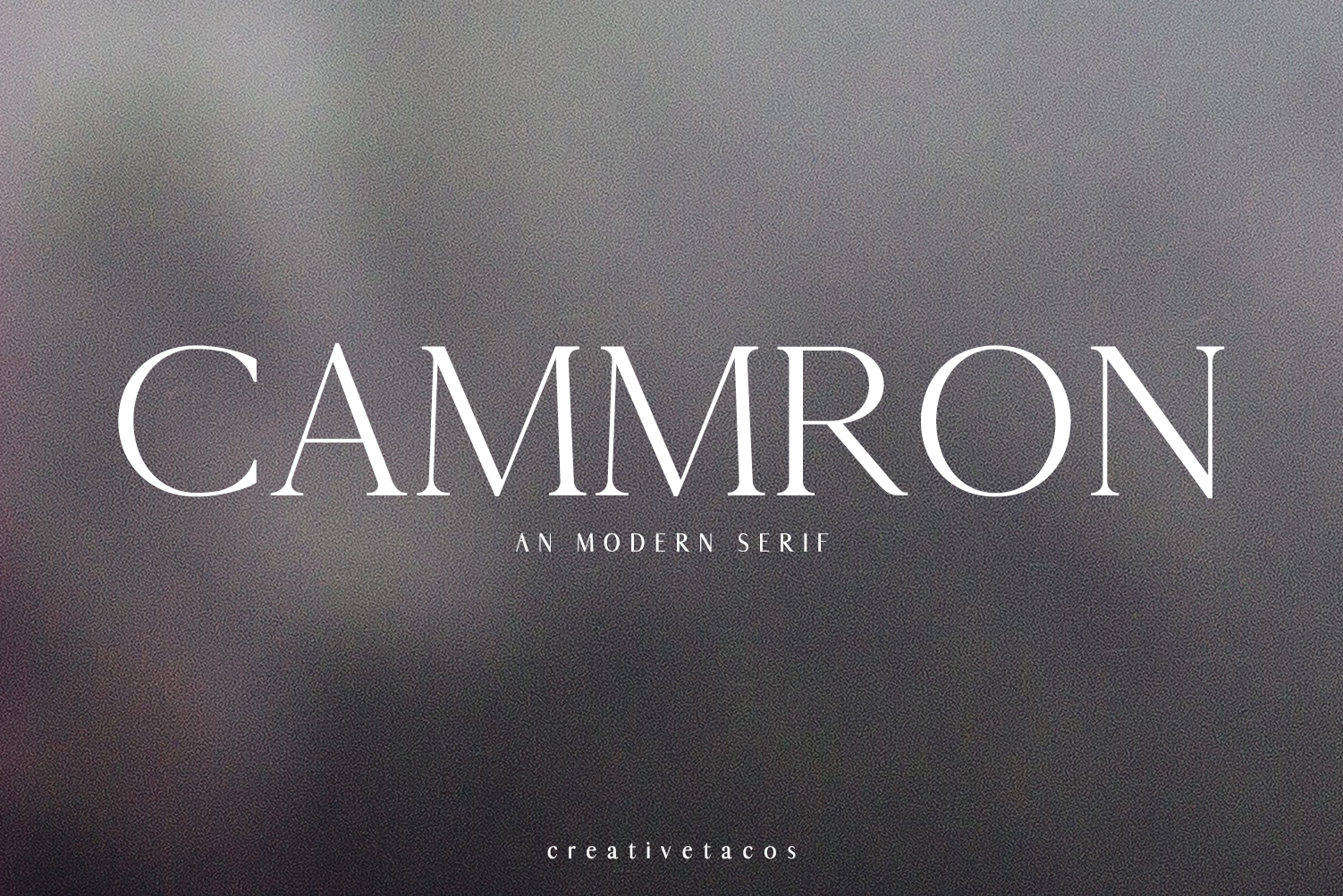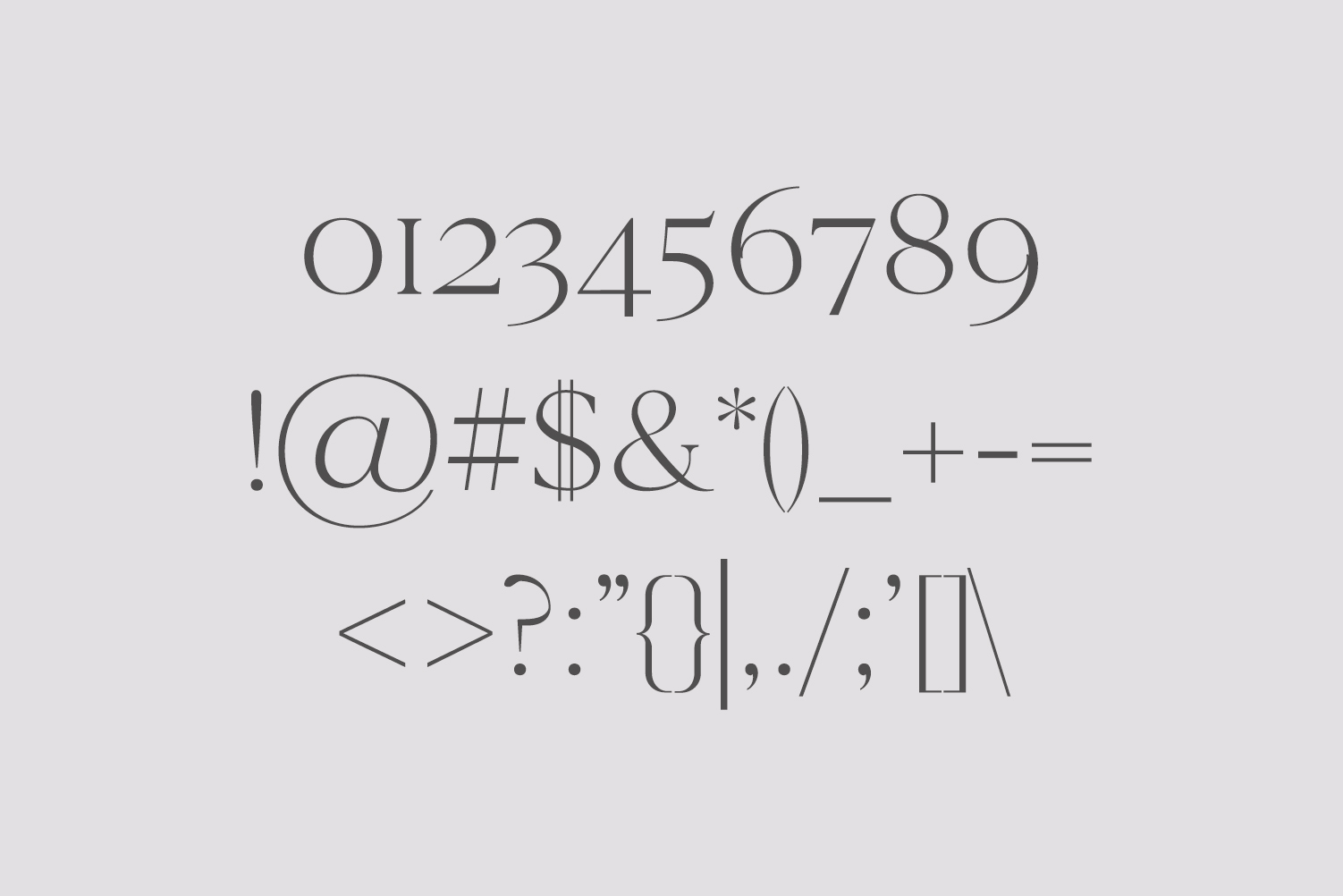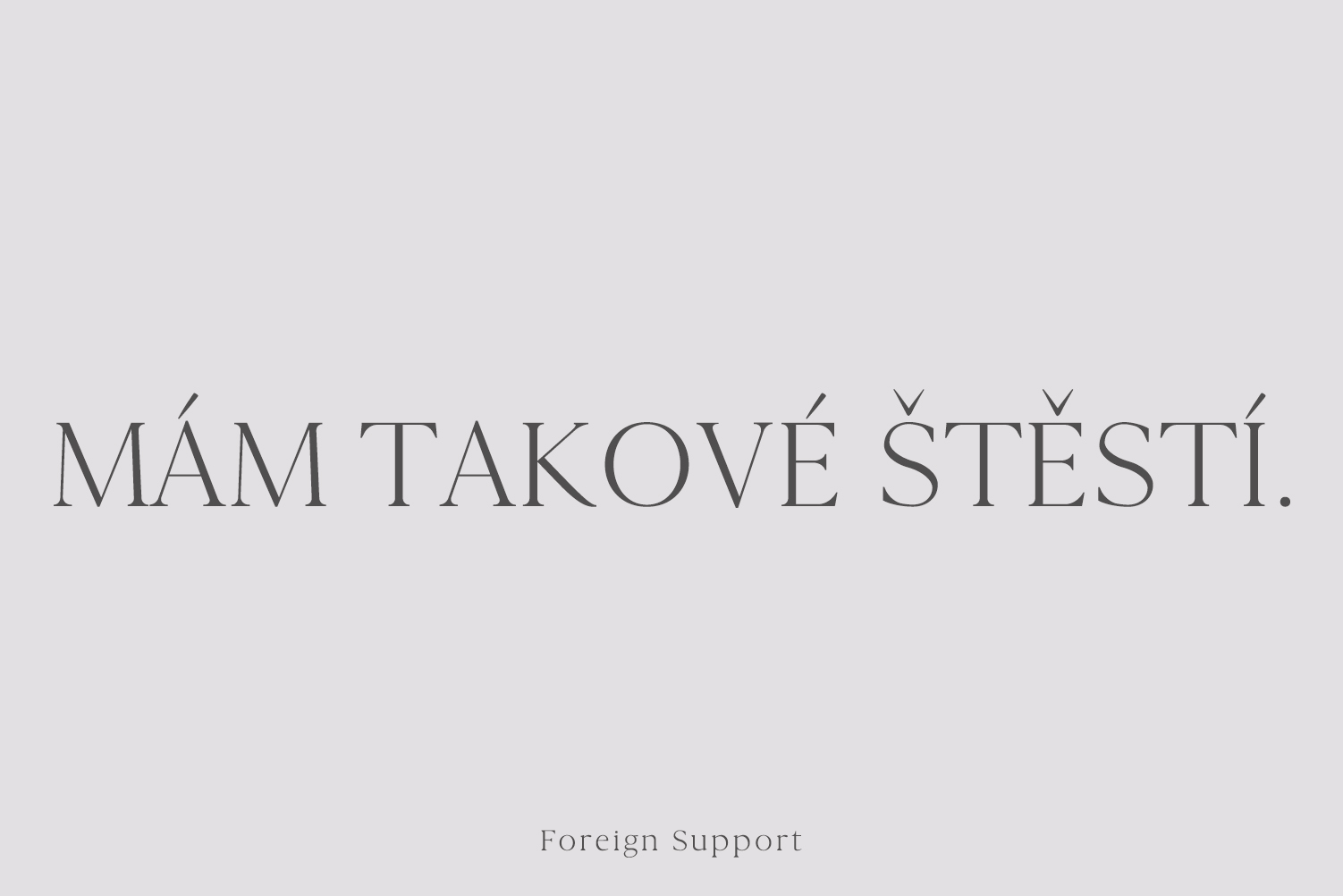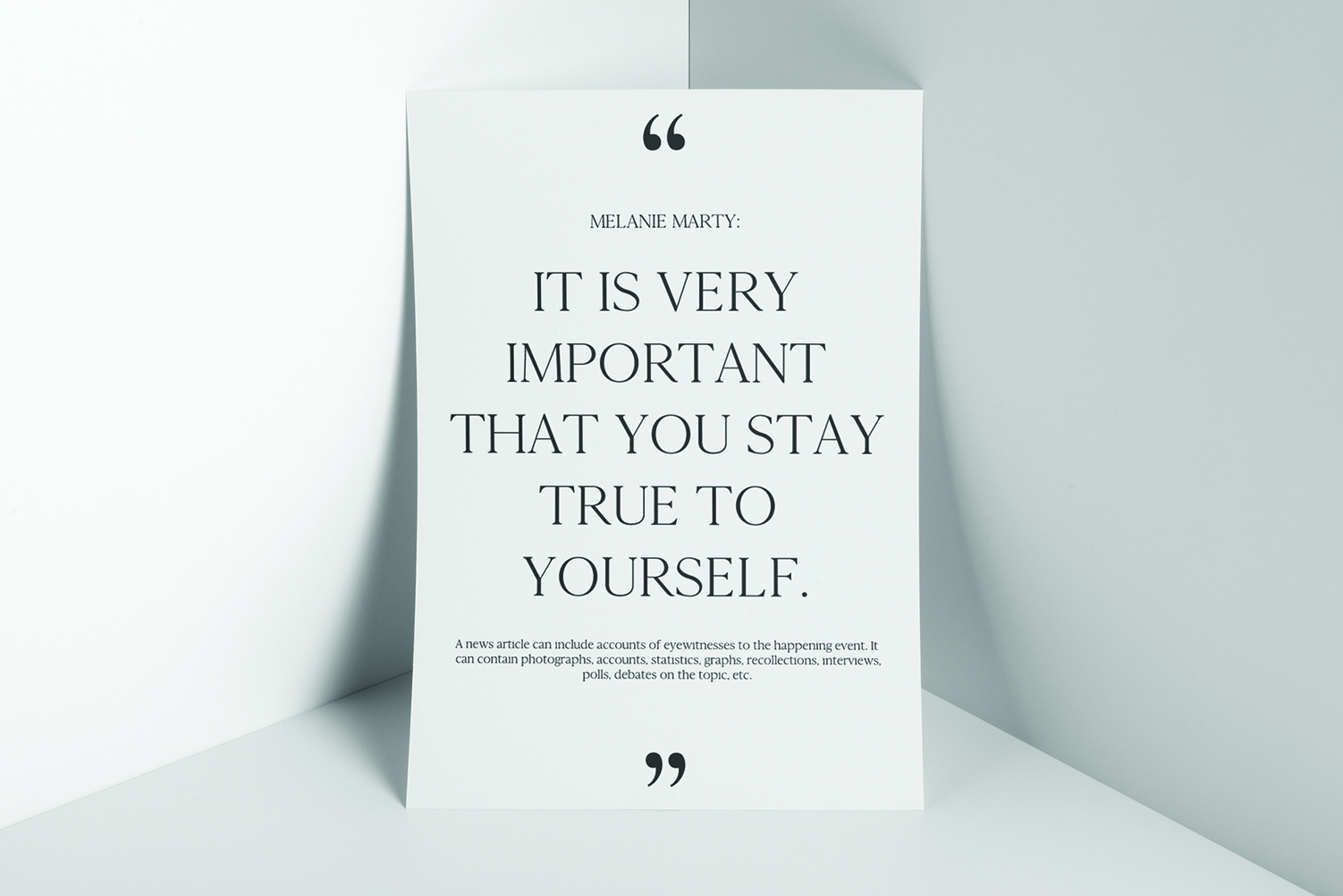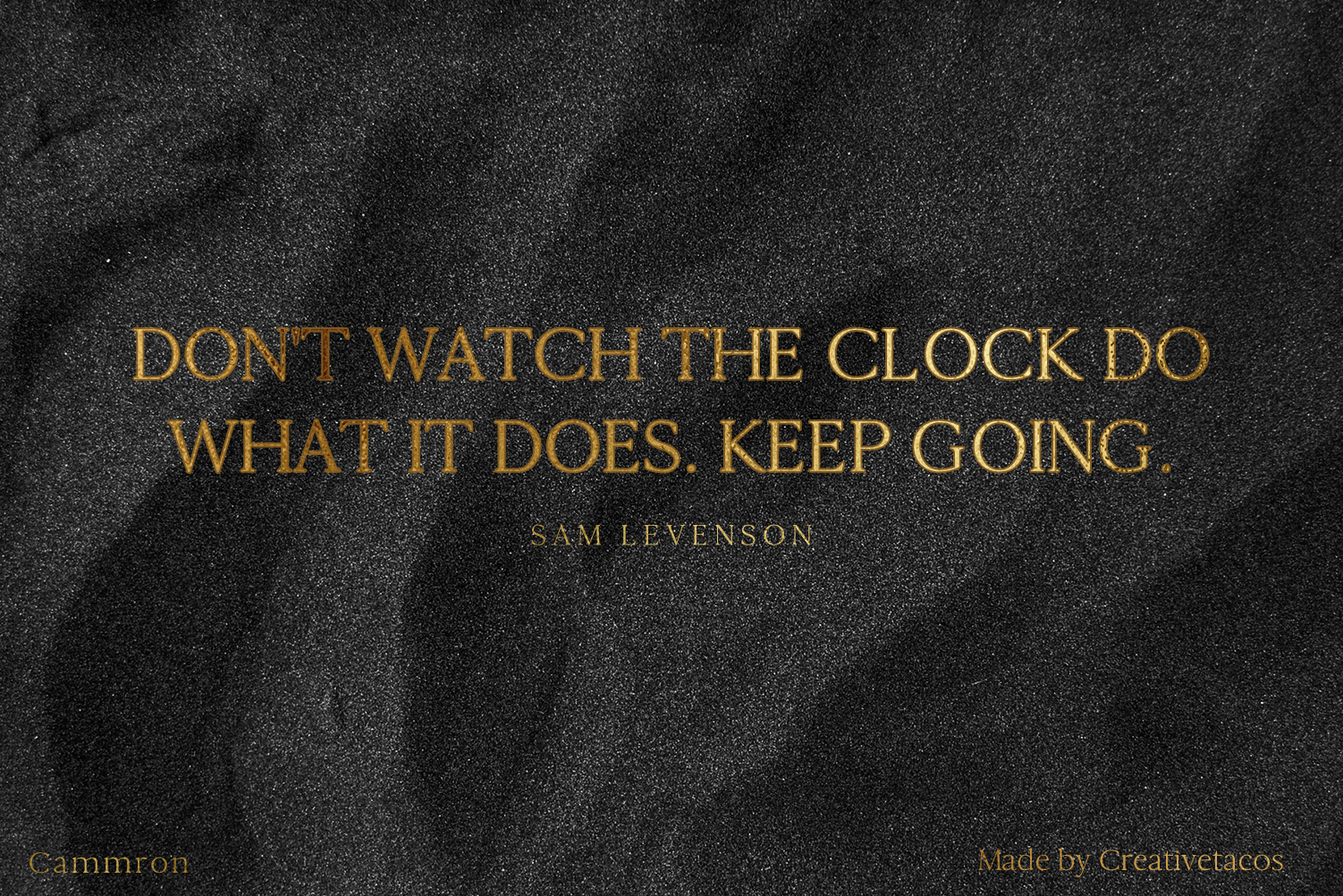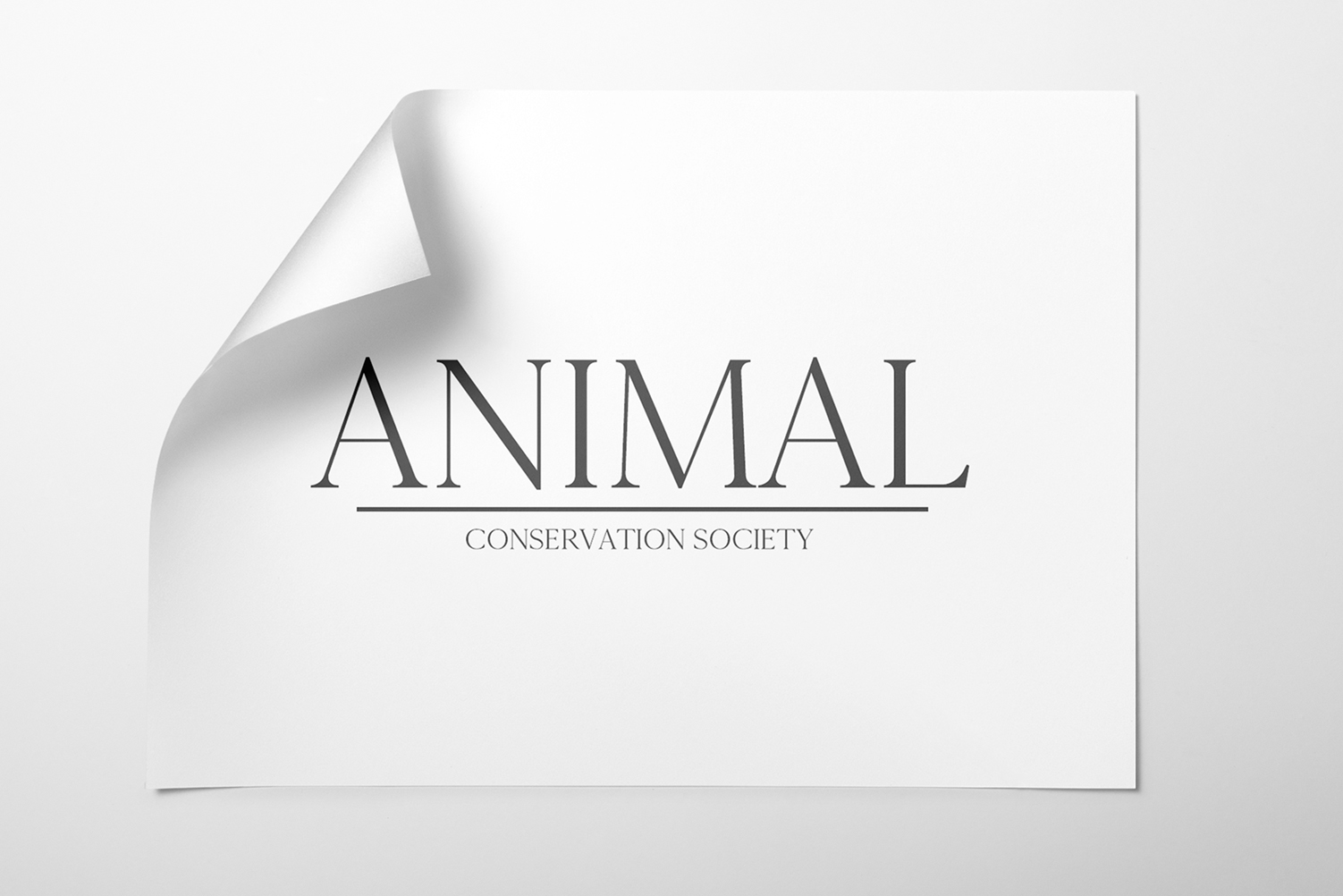
Cammron is a modern dashing serif font family. It includes all basic glyphs with Non-English characters. This font pairs beautifully with script, signature or handwriting style. It is best for headlines, titles, magazines headings, logo, advertising, posters, quotes, web layouts, invitations, packaging design, books, branding, and nearly any creative design.